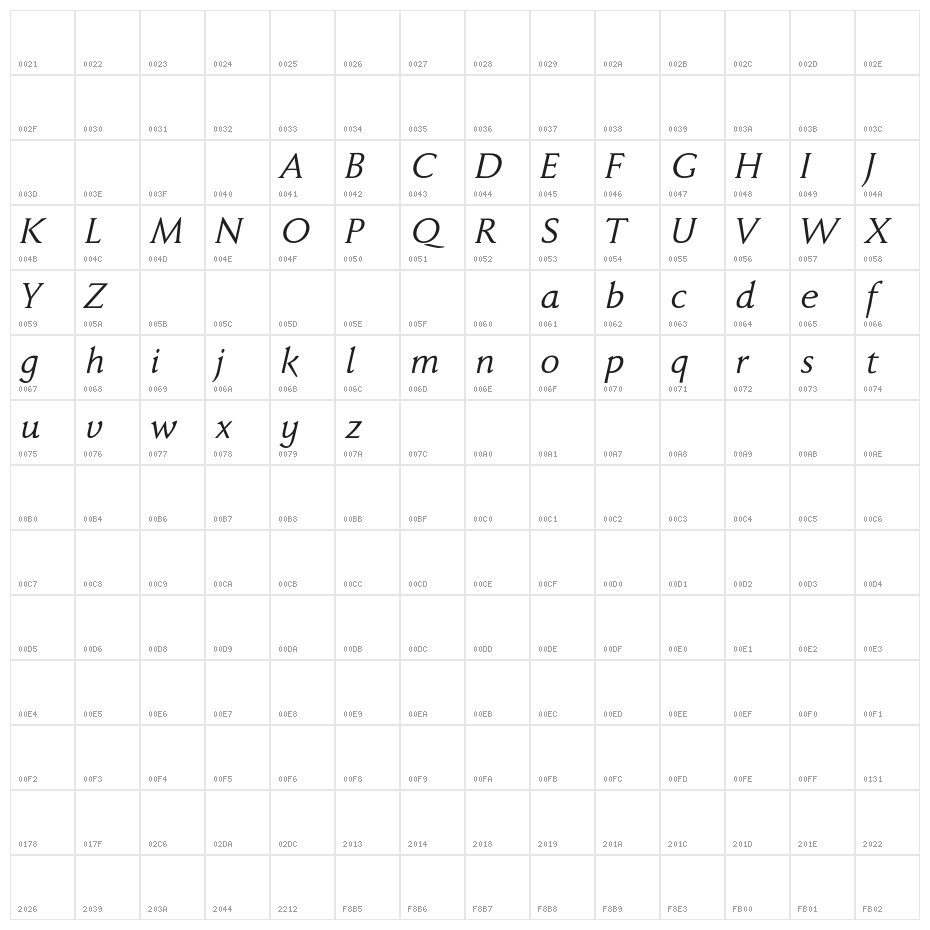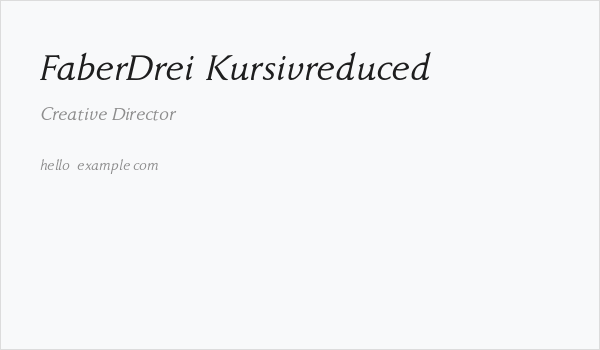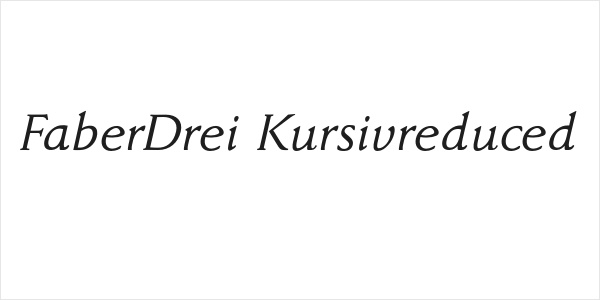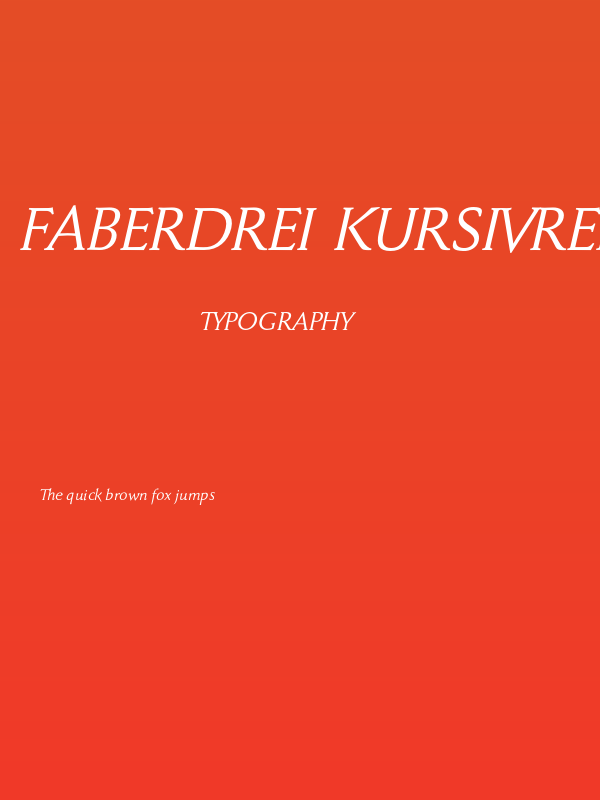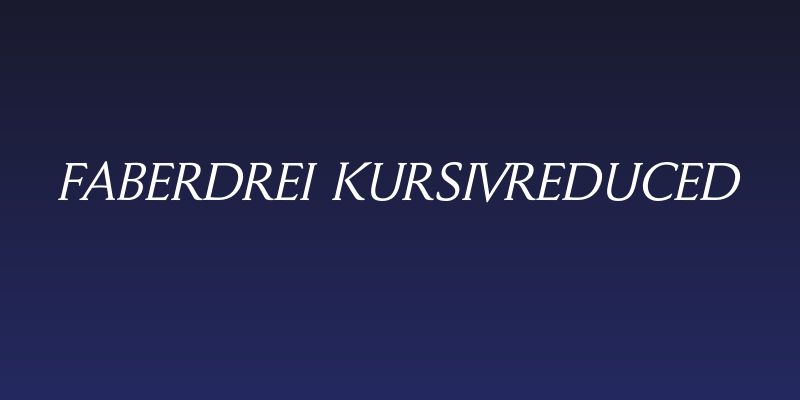
FaberDrei-Kursivreduced Font
FaberDrei-Kursivreduced Description
This font features a classic and elegant italic style with a slight slant, giving it a sophisticated and dynamic appearance. The characters are well-defined with smooth curves and sharp edges, providing a sense of fluidity and motion. The uppercase letters maintain a consistent height, while the lowercase letters exhibit a harmonious balance between ascenders and descenders. The numerals are clear and legible, complementing the overall design. Special characters are included, maintaining the font's cohesive style. This font is suitable for projects that require a touch of elegance and formality.
| Proposed Projects | Ideal for wedding invitations, formal event programs, elegant branding, and editorial design. |